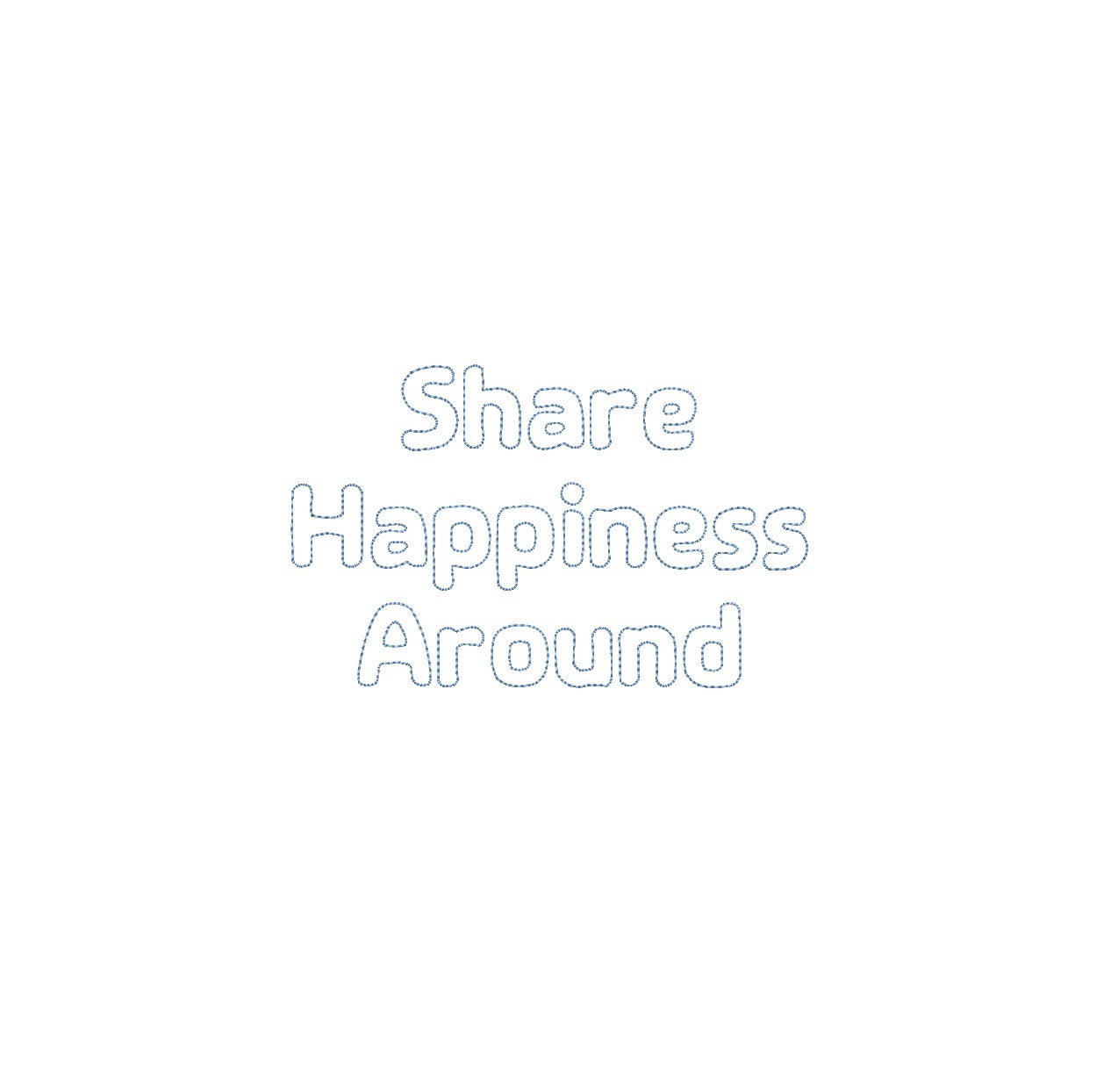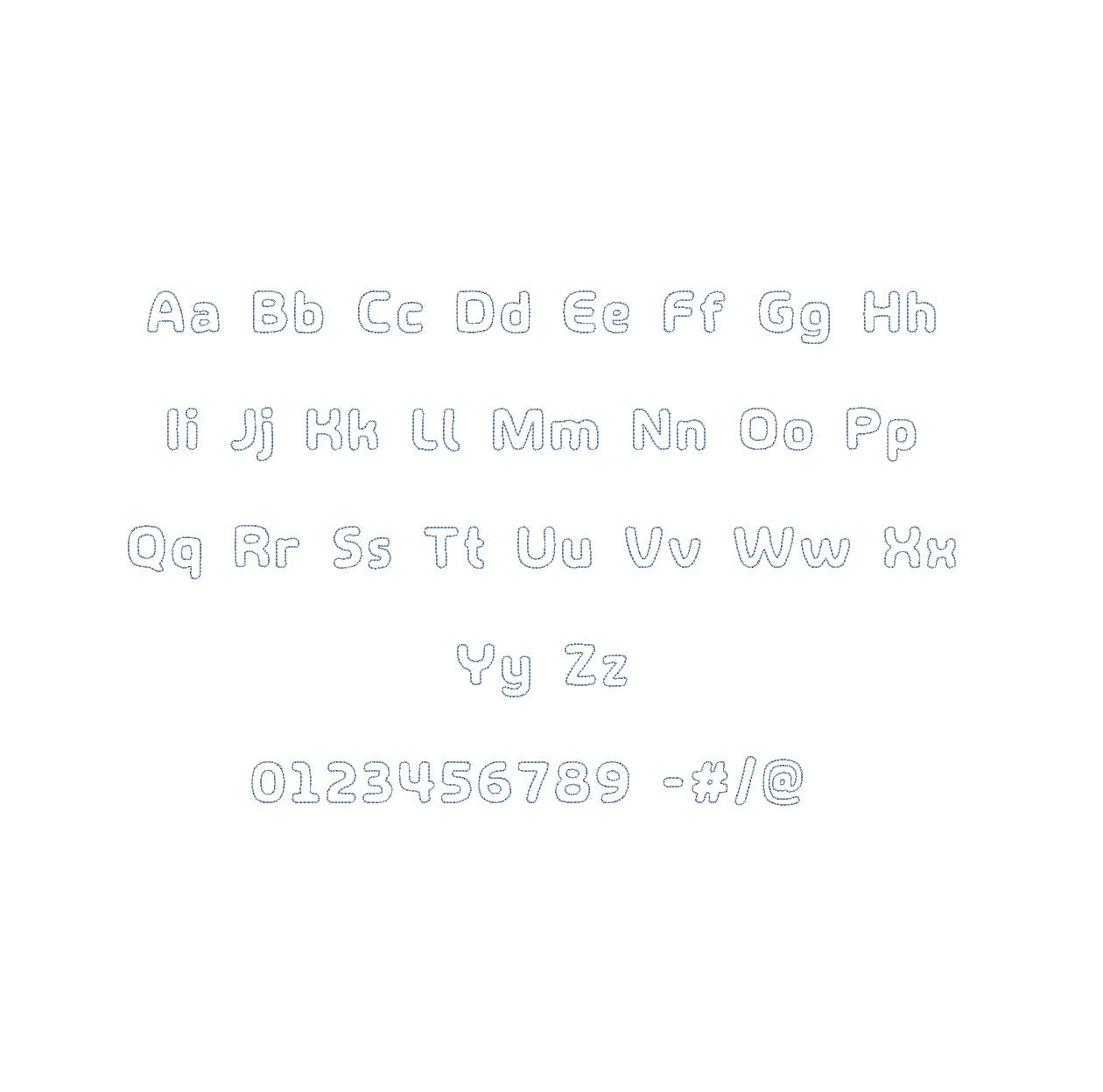
Share Happiness Around bean stitch outline ESA machine embroidery font alphabet preview
Share Happiness Around bean stitch outline ESA machine embroidery font additional lettering sample
Share Happiness Around Bean Outline ESA font
Elevate your embroidery projects with the Share Happiness Around Bean Outline ESA font, compatible with Wilcom Studio e4.5.6 and Hatch 3 versions and up. This font effortlessly combines joyous charm and precision, infusing your designs with a unique aesthetic perfect for spreading happiness through monograms and embellishments. Experience seamless compatibility for exceptional results and unleash a new level of stitching finesse. Transform your creations into embroidery masterpieces that radiate positivity and creativity. Elevate your projects with the Share Happiness Around Bean Outline ESA font and make your embroidery truly heartwarming and memorable.